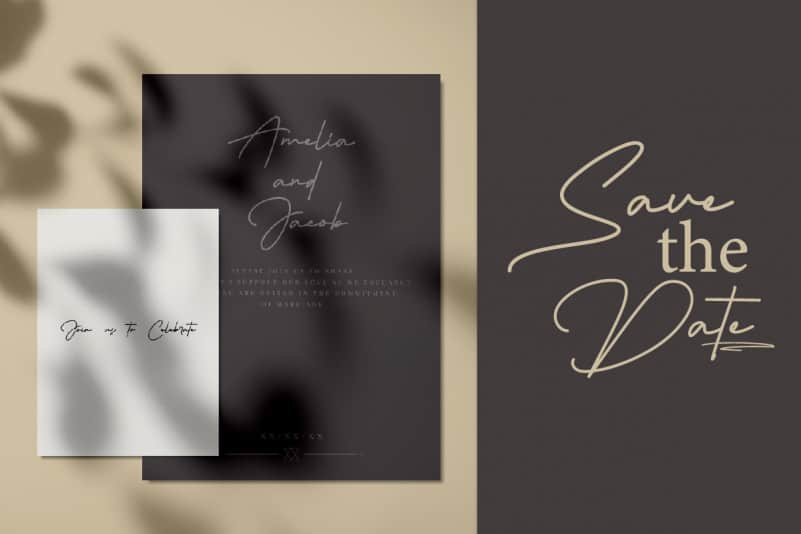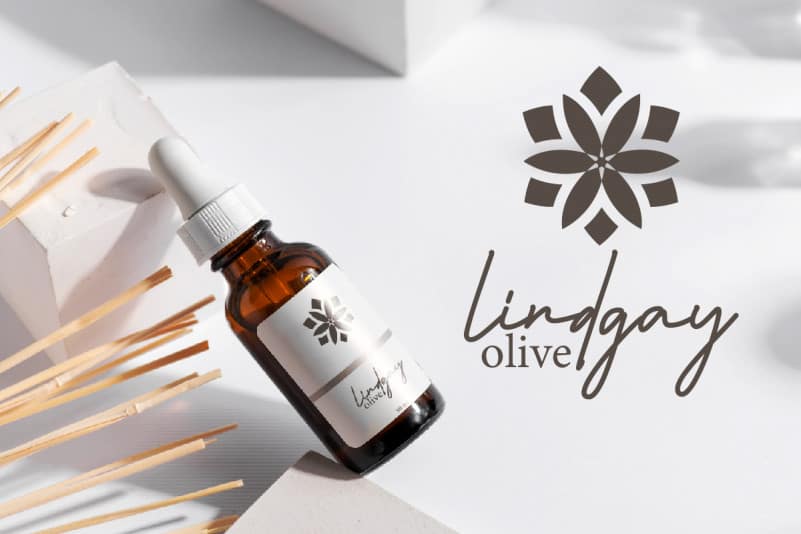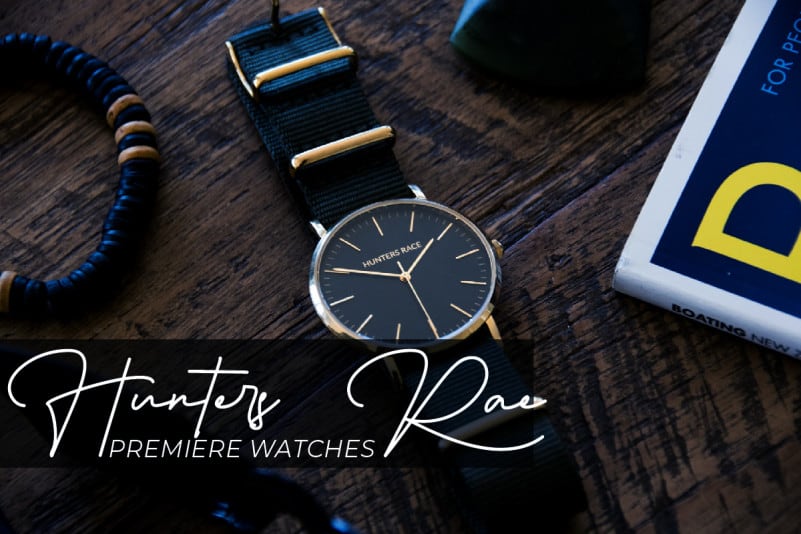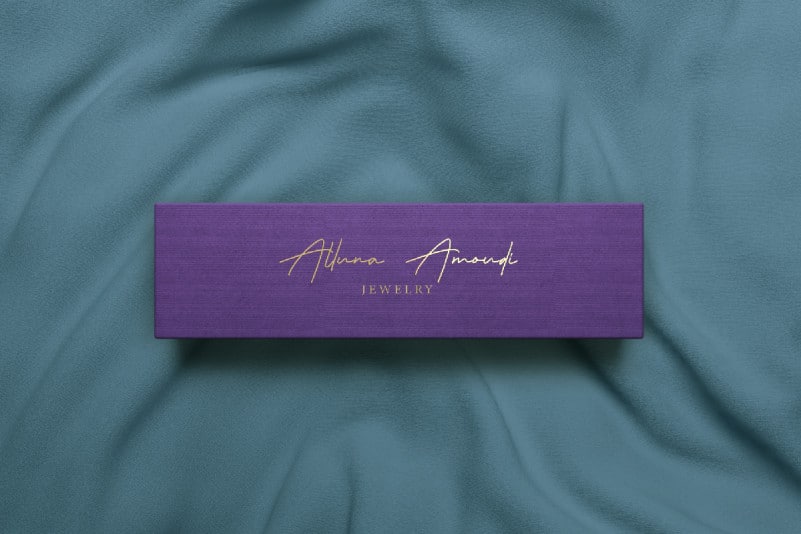
Masterline Handwritten Font
Masterline Handwritten Font is a classy signature handwriting font which professional and classic typography look. This font is crafted carefully in every its single letter so we can make sure it has great looking, inspired by the handwriting of Italian women and ancient manuscripts. Carefully designed to work together in harmony and This one should make your designs instantly professional and jaw-dropping!
Masterline Handwritten Font includes full set of Uppercase and Lowercase Basic Characters, Numerals and Punctuation. Also it contains ligatures to make it flowless characters to perfectly make awesome look that add more aesthetic fonts to perfect your extraordinary project. Masterline will be great for writer, musician, singer, CEO, composer, architect, etc